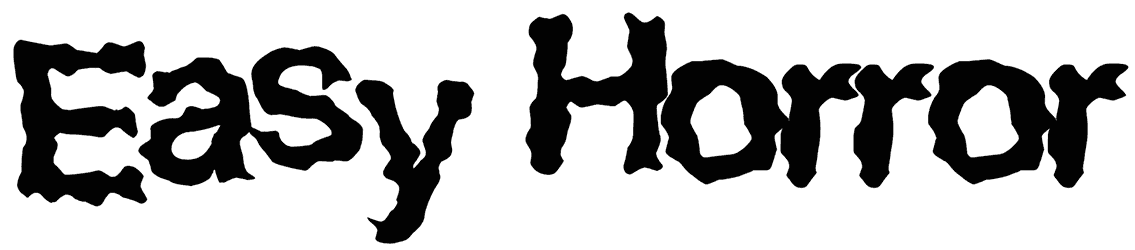
Easy Horror Font
Easy Horror is a multifaceted font that lets you design a poster’s background or book covers freely. Although this font is classified as a horror font, it can give a new boost to your summer festival in combination with summer elements and water.
The wave type of this font has made it possible to use it in children’s projects to induce a sense of excitement. So don’t hesitate to download this versatile font and make yourself needless for a while.